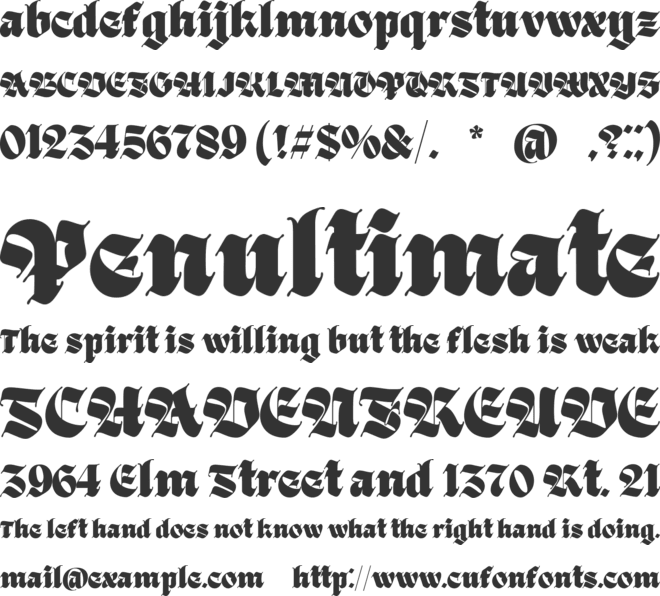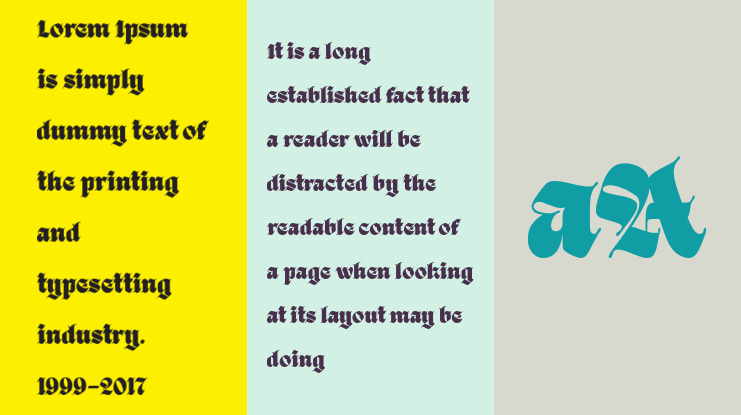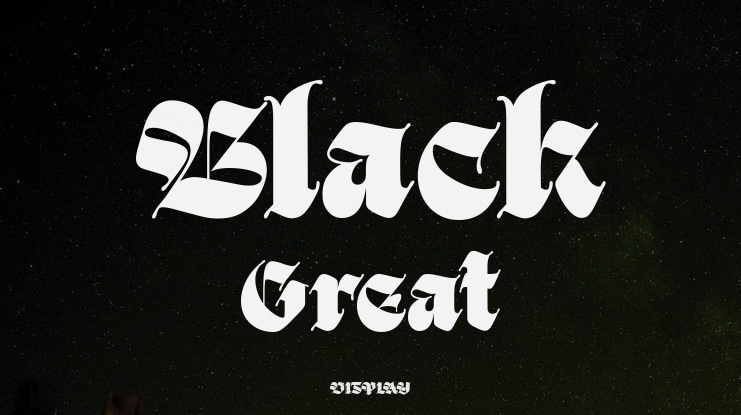
"Black Great" is a striking Blackletter-style font that exudes power and authority with its bold strokes and unique design. Its strong presence is ideal for projects that require a sense of robustness and influence. The font features elegant swashes that add sophistication and flair to its overall look. With a vast collection of 809 glyphs, including alternate characters and ligatures, "Black Great" offers versatility for creative typography. It fully supports PUA Unicode, ensuring smooth compatibility across different platforms and software. Moreover, the font provides extensive multilingual support, enabling users to utilize it effectively in various languages and writing styles. Whether used for headlines, titles, or decorative purposes, "Black Great" delivers a bold statement with elegance and refinement.